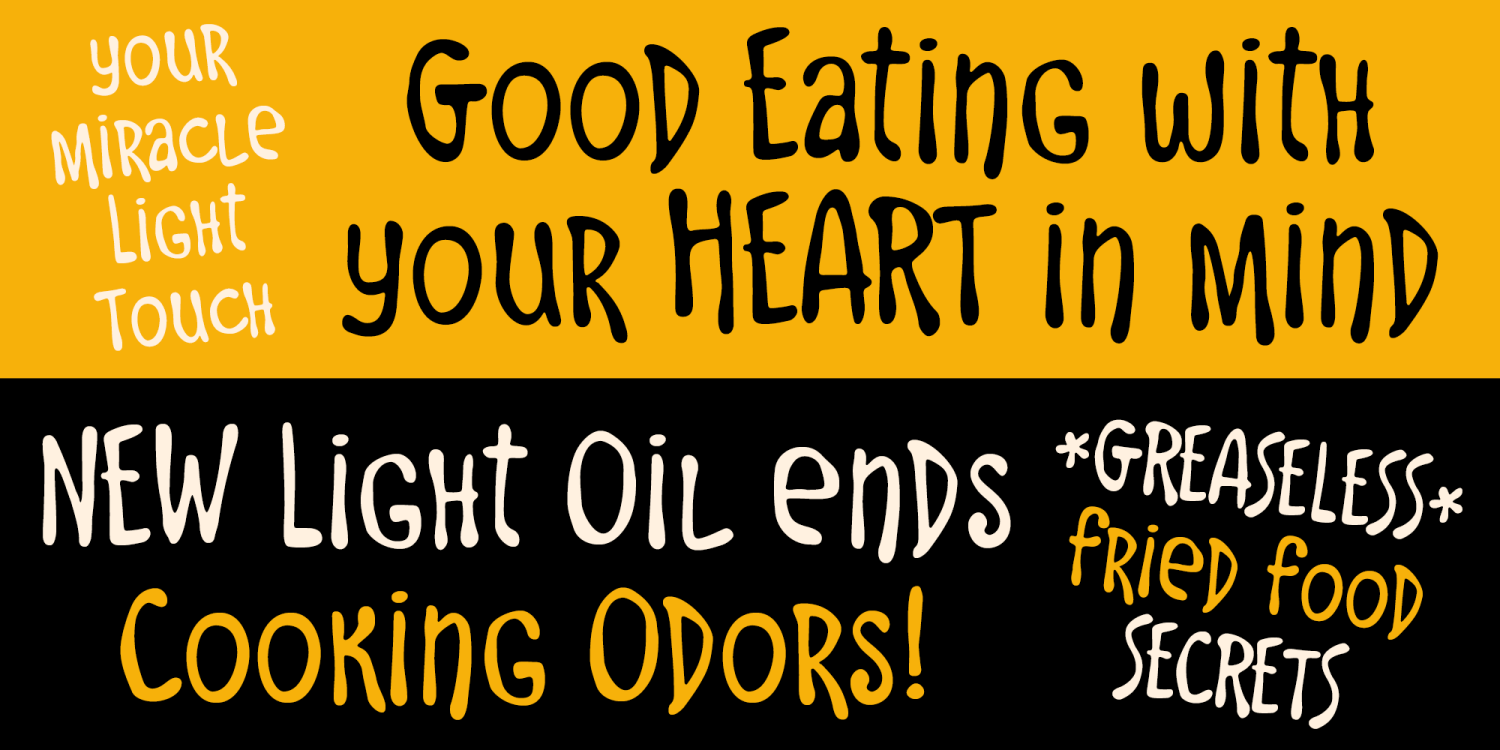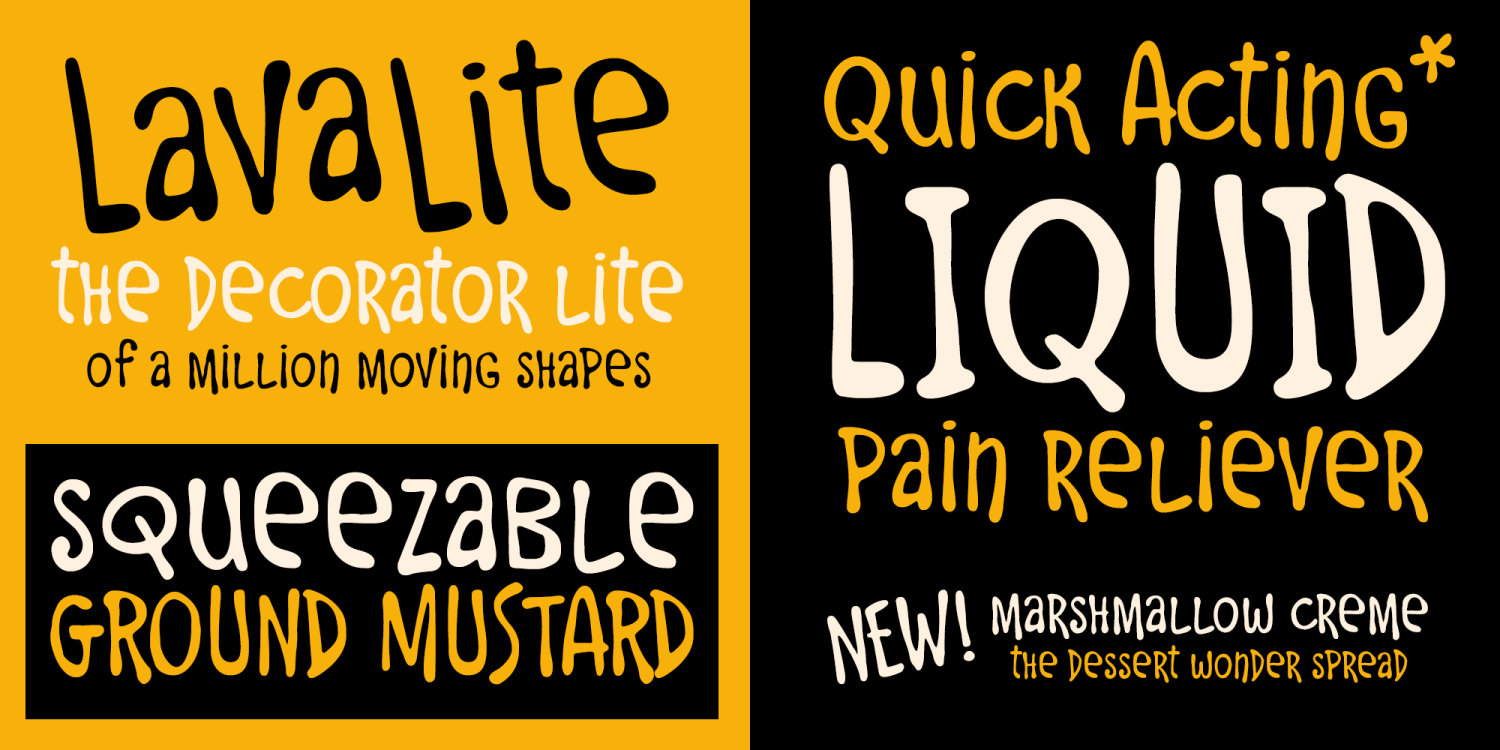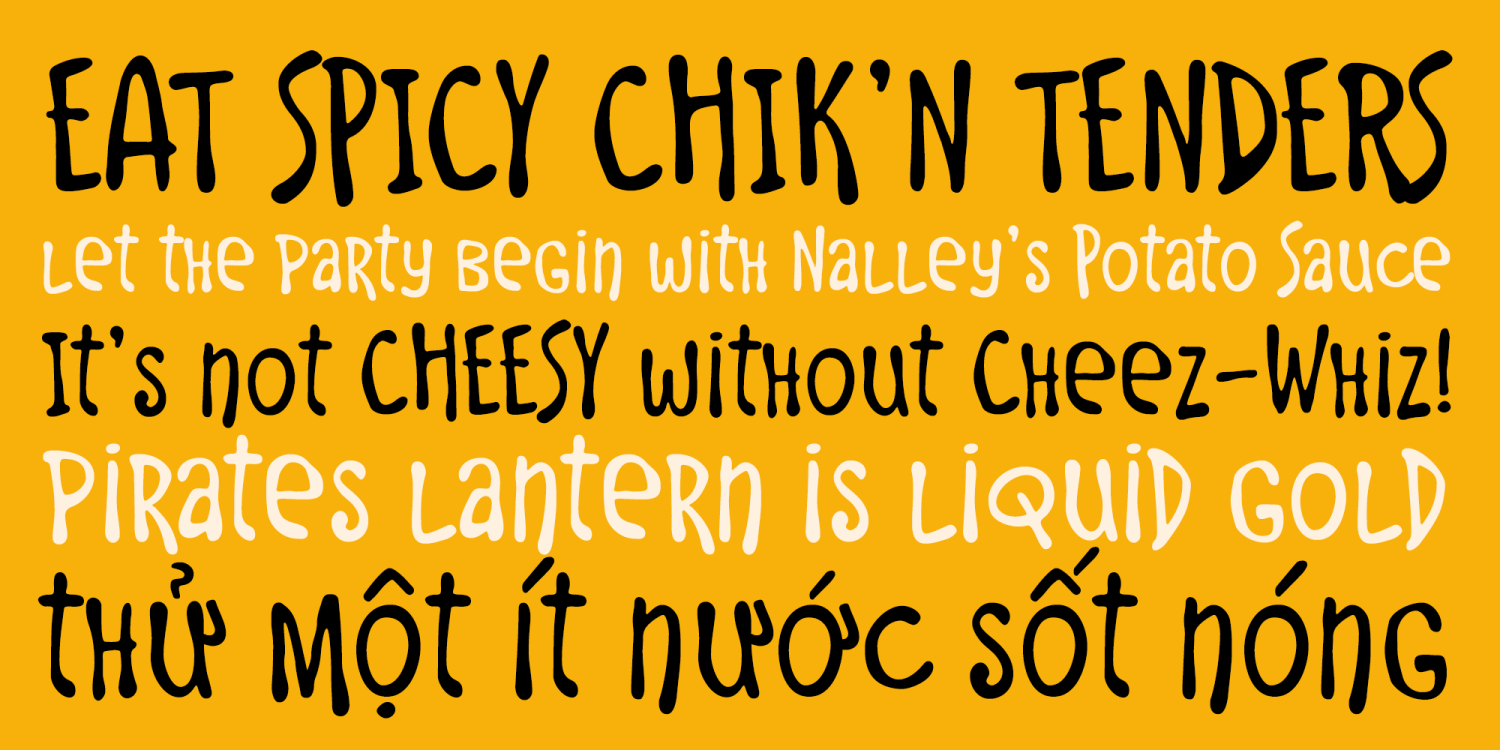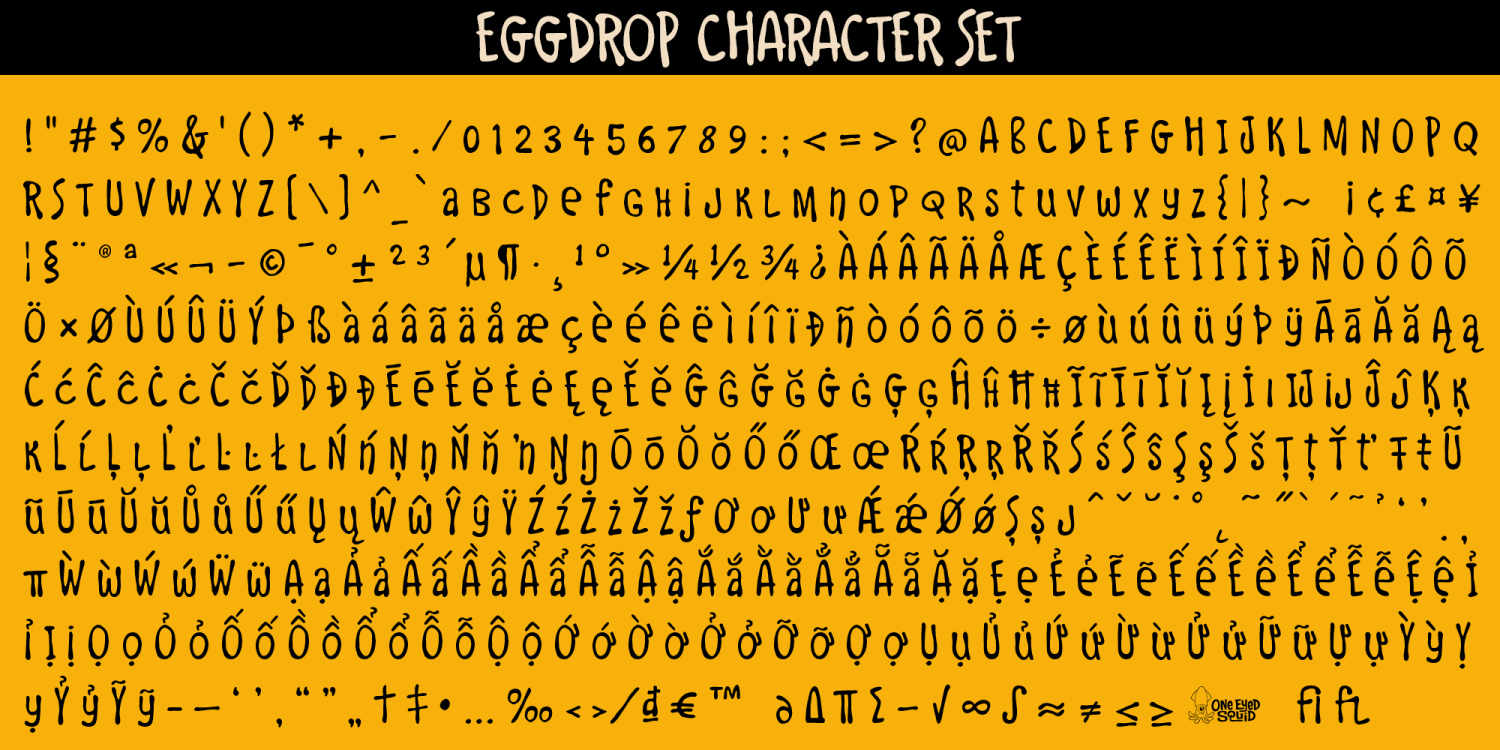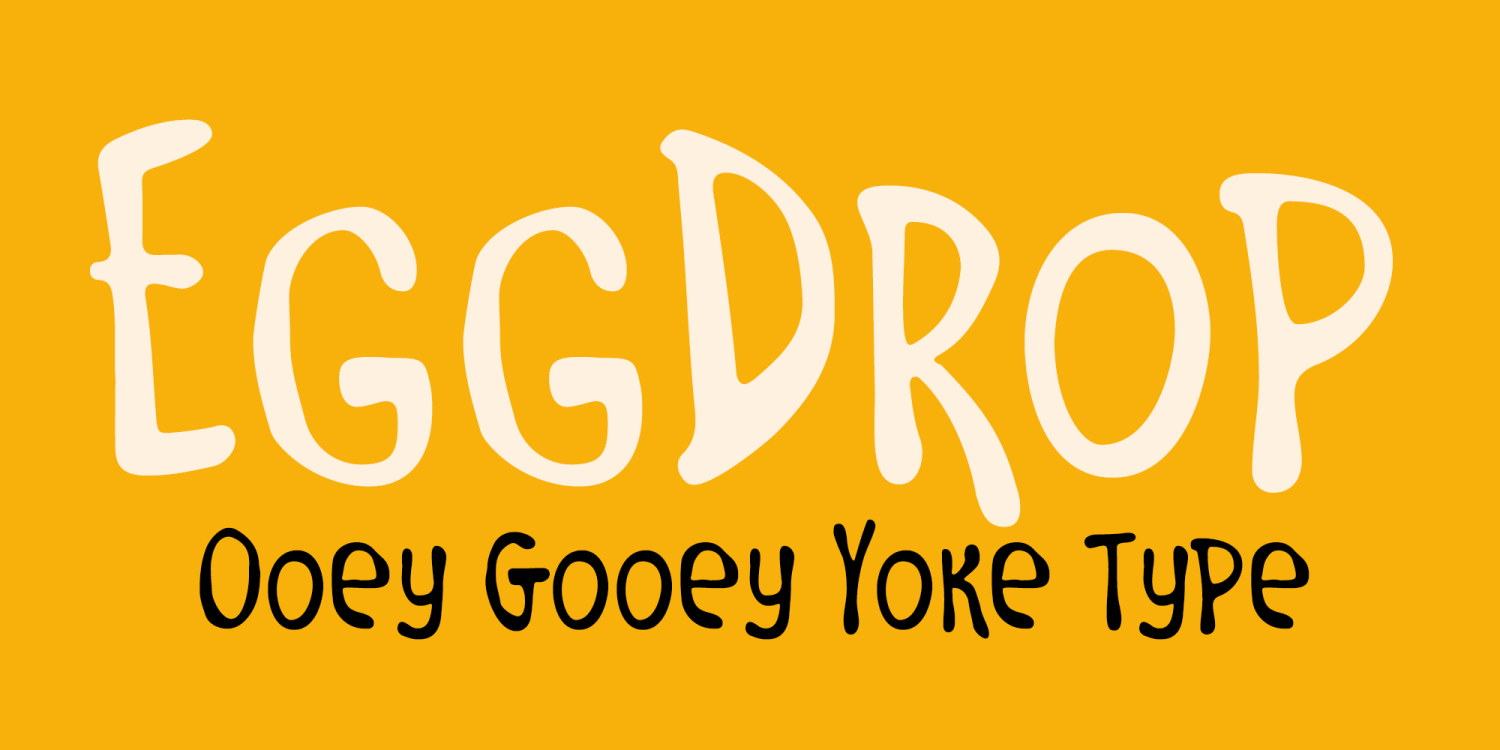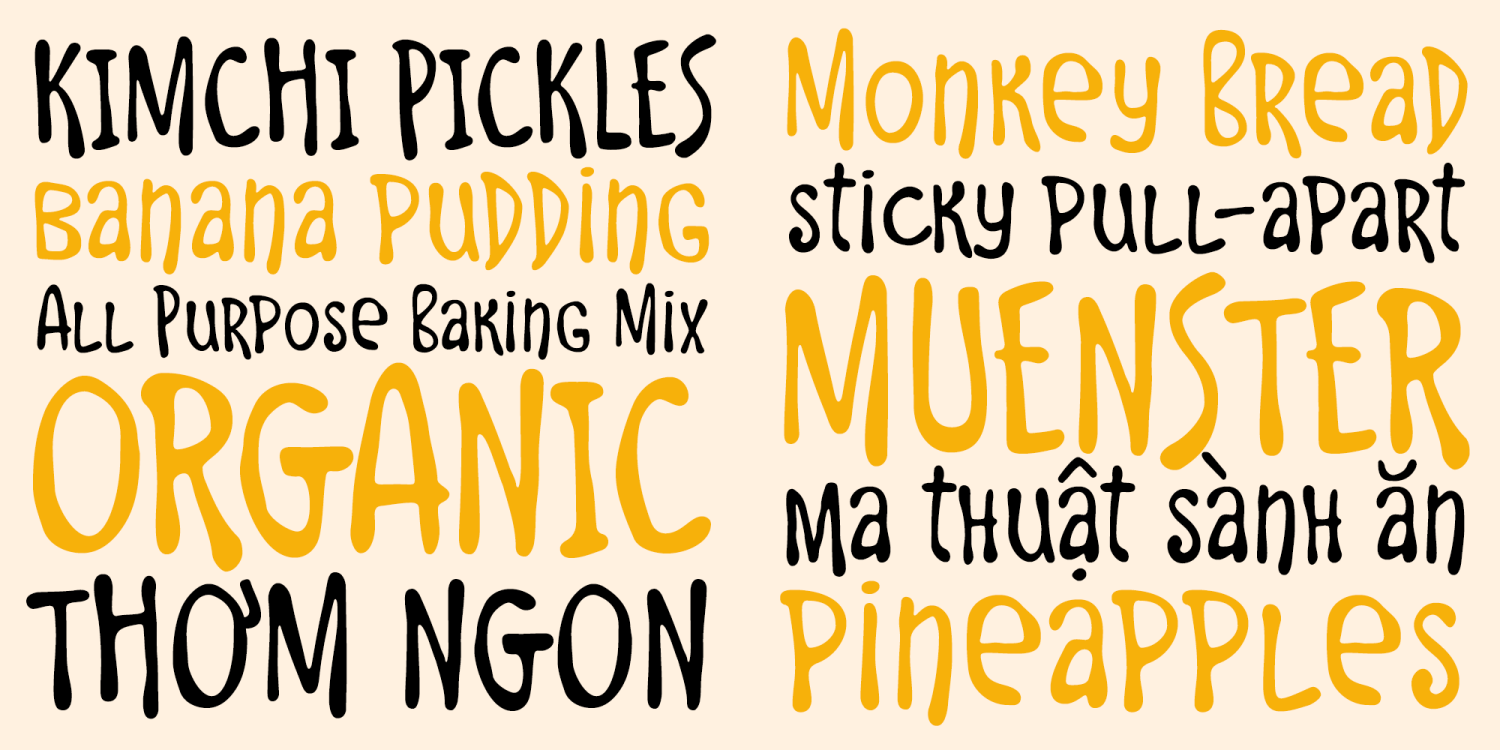
Eggdrop
About Eggdrop
All the liquid runny look without the drips is what the ooey gooey styling of Eggdrop is all about. Sort corners, blobbed up ends, and an almost melty feel to it gives you all the warm fuzzy feelings. (Eggdrop contains an extended Latin character…